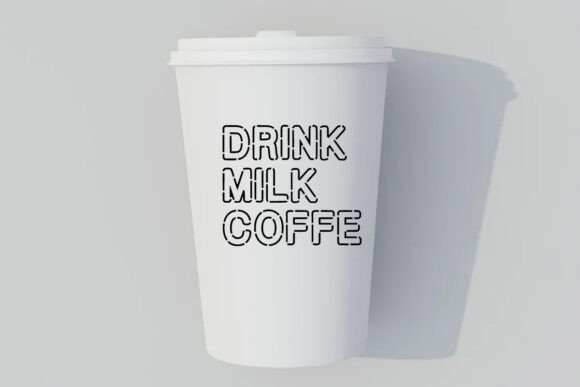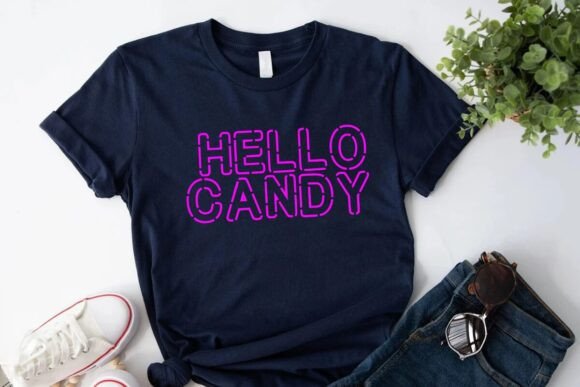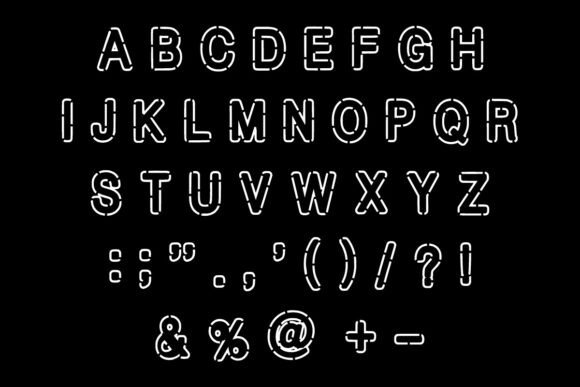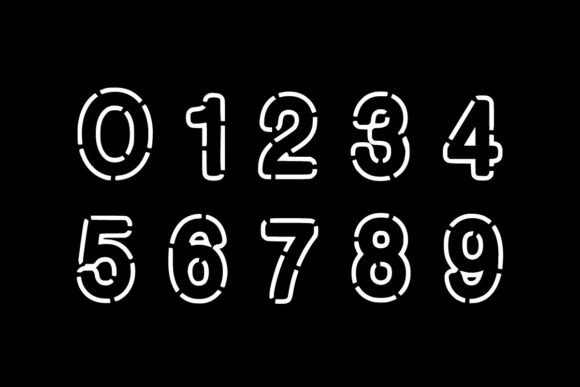
The Sweet Spot: Discovering Candy Blondy Font
I’ll never forget the moment I stumbled upon Candy Blondy Font while working on a project for a client’s birthday card. I was on a mission to find the perfect font – something that conveyed friendliness, playfulness, and was easy to read. After hours of scrolling through font libraries, I finally hit the jackpot with Candy Blondy. Its outline adaptable display font style instantly caught my eye, and I knew I had found the one. In this article, I’ll share my experience with Candy Blondy, its features, and how to make the most of it in your designs.
What I Love About Candy Blondy ✨
- ✅ Easy to read: Candy Blondy is perfect for designs where clarity is key, such as headings, titles, and short paragraphs.
- ✨ Friendly vibe: The font exudes a warm, approachable feel that’s ideal for greeting cards, invitations, and social media graphics.
- 💡 Adaptable: Whether you’re designing for digital or print, Candy Blondy adjusts seamlessly to fit your project’s needs.
- 🎨 Versatile: Use it for crafts, presentations, or digital designs – Candy Blondy is a jack-of-all-trades font.
While Candy Blondy is an excellent font, it’s not without its limitations. For instance:
- ⚠️ Limited use for body text: Due to its outline style, Candy Blondy might not be the best choice for lengthy paragraphs. Stick to headings, titles, or short blurbs for optimal impact.
- ⚠️ Not ideal for low-resolution images: If you’re working with low-res images or small font sizes, Candy Blondy might lose its charm. Opt for higher resolutions or larger font sizes to make the most of it.
The Designer Inspiration Behind Candy Blondy
Candy Blondy was designed with the intention of creating a friendly, approachable font for everyday design needs. Its creator aimed to craft a font that would be both easy to read and visually appealing, making it perfect for a wide range of projects. While the exact backstory might be fictional, one thing is clear: Candy Blondy has captured the hearts of designers and crafters alike with its charming outline style and adaptable nature.
Q: What type of projects is Candy Blondy best suited for?
A: Candy Blondy is versatile and can be used for various projects, including crafts, digital designs, presentations, greeting cards, and more.
Q: Can I use Candy Blondy for body text or lengthy paragraphs?
A: While Candy Blondy is easy to read, its outline style might not be ideal for lengthy paragraphs. Stick to headings, titles, or short blurbs for optimal impact.
| Font Name | Candy Blondy Font |
| Author | Infinity art Studio |